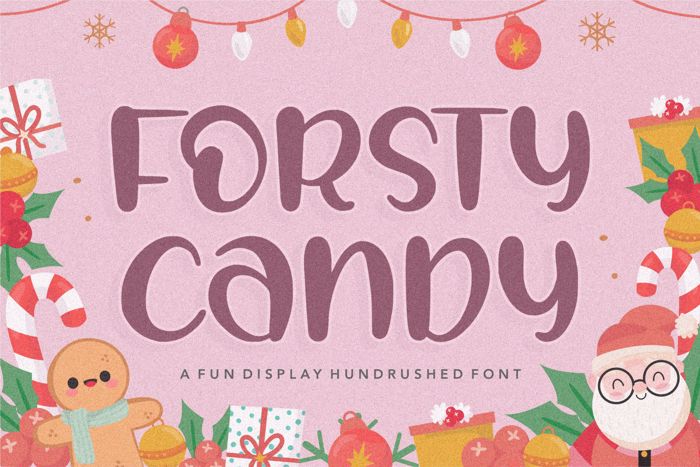
FORSTY CANDY Font
Introducing by Balpirick Studio.
Proudly Present, FORSTY CANDY Font.
FORSTY CANDY is a Fun Display Handbrushed Font.
FORSTY CANDY is perfect for product packaging, branding project, megazine, social media, wedding, or just used to express words above the background.